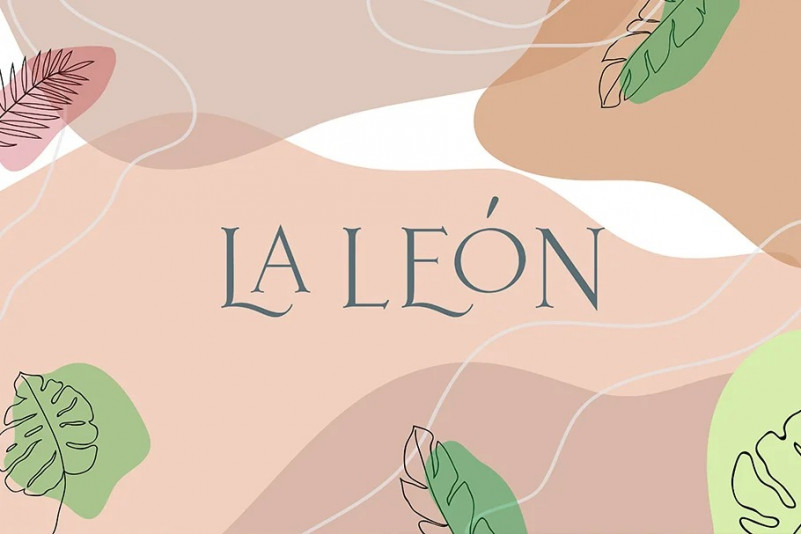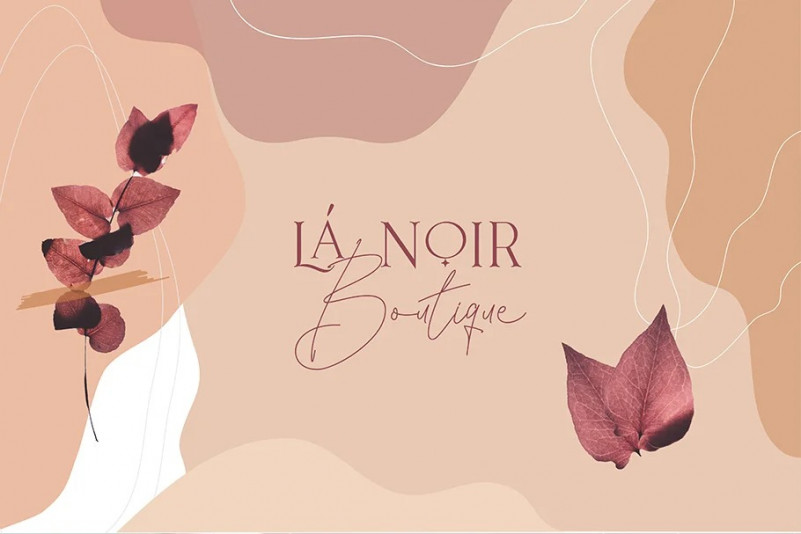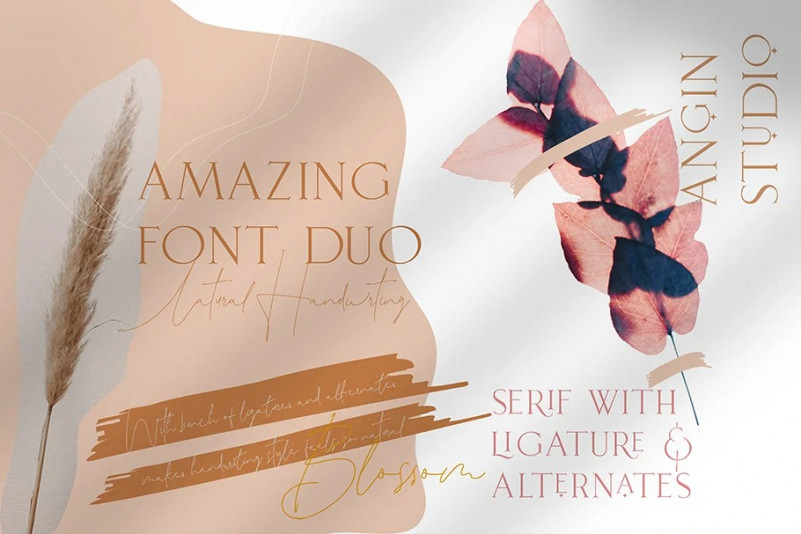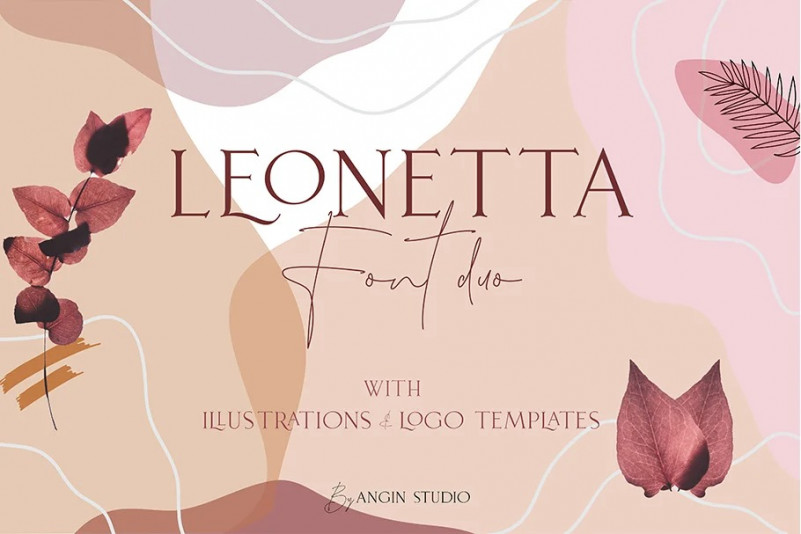
Leonetta Font Duo
Introducing new font duo – Super rich with gritty texture and stylistic alternates. It’s designed and shared by Angin Studio. Leonetta Script was designed to imitate a natural handwriting text, comes with ligatures and alternates character to achieving the natural ways of writing and having beautiful visual appear, Leonetta Serif comes with bunch of ligatures and alternates with attractive visual appear will give you the fleksibility to mix and match the letter so it can speak visually the way you speak.